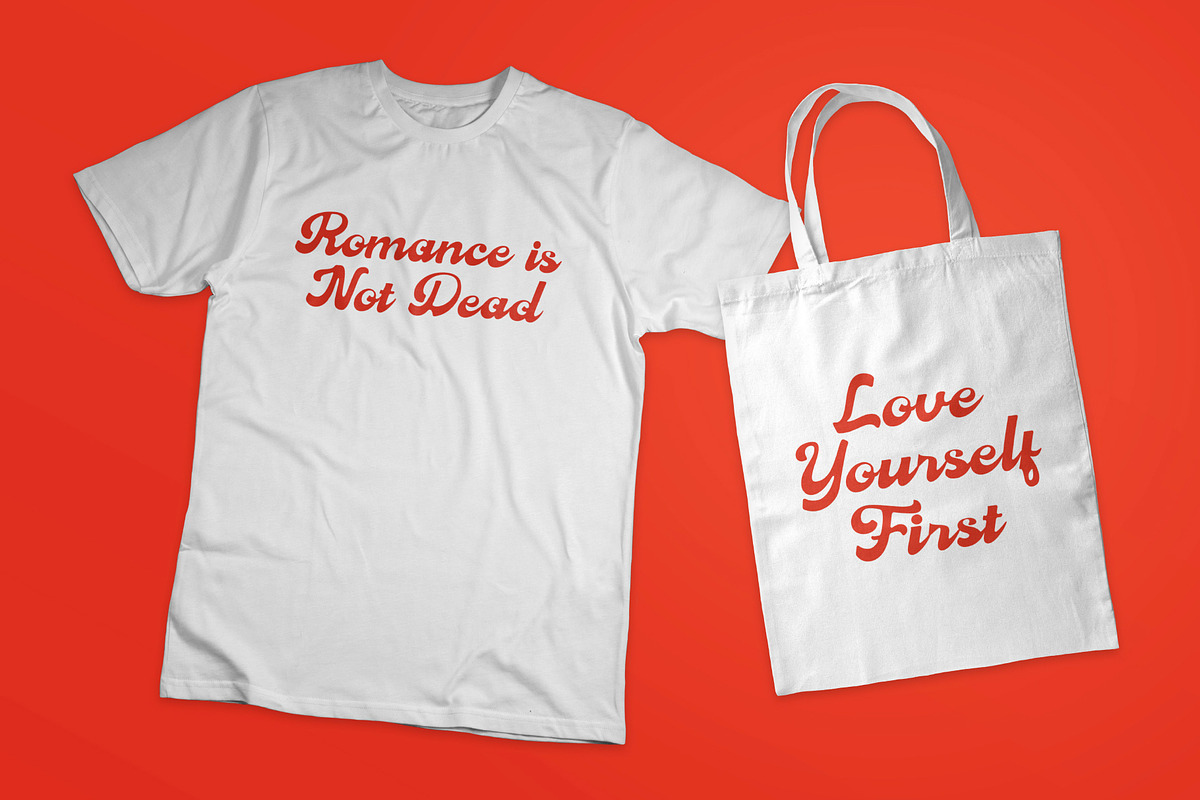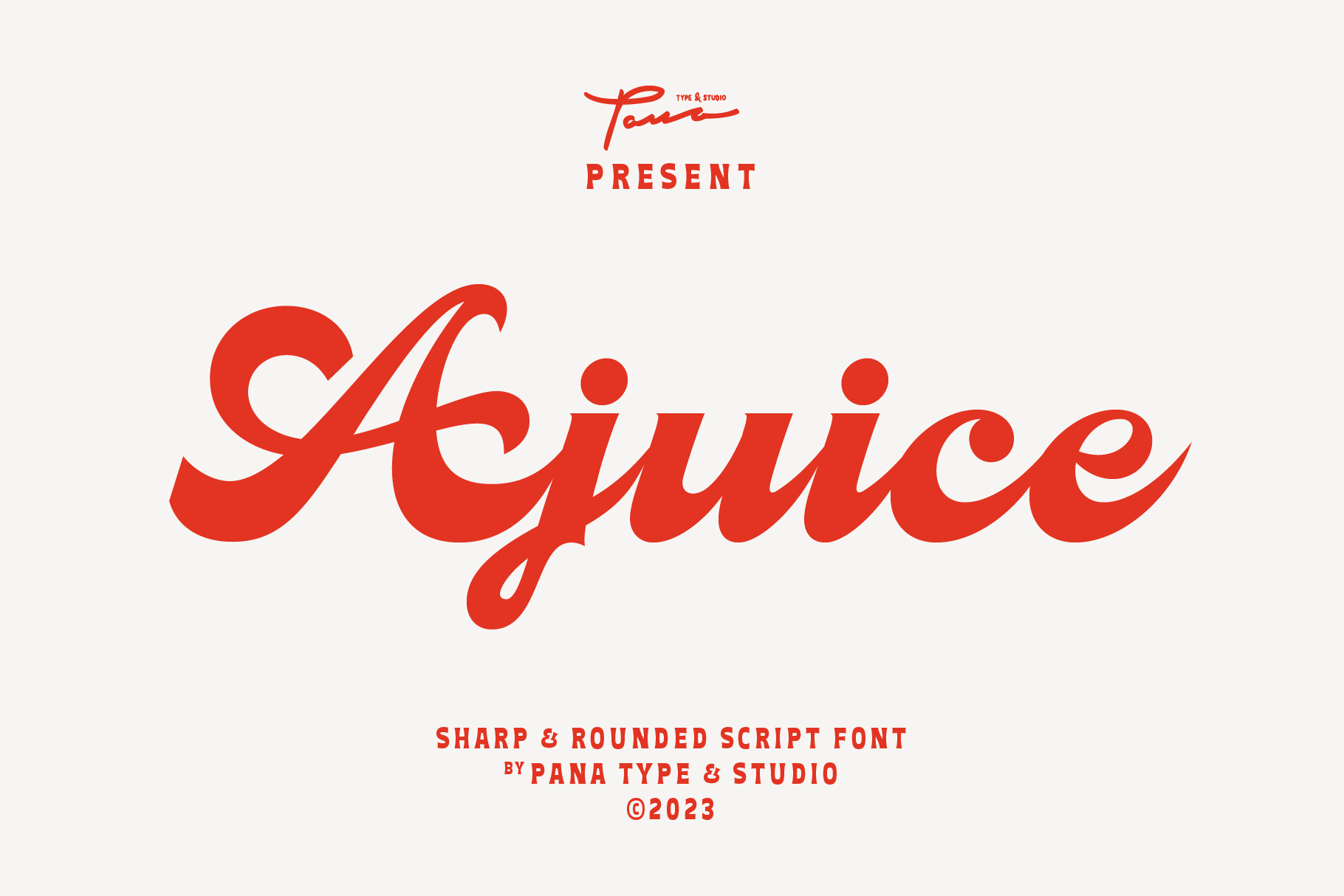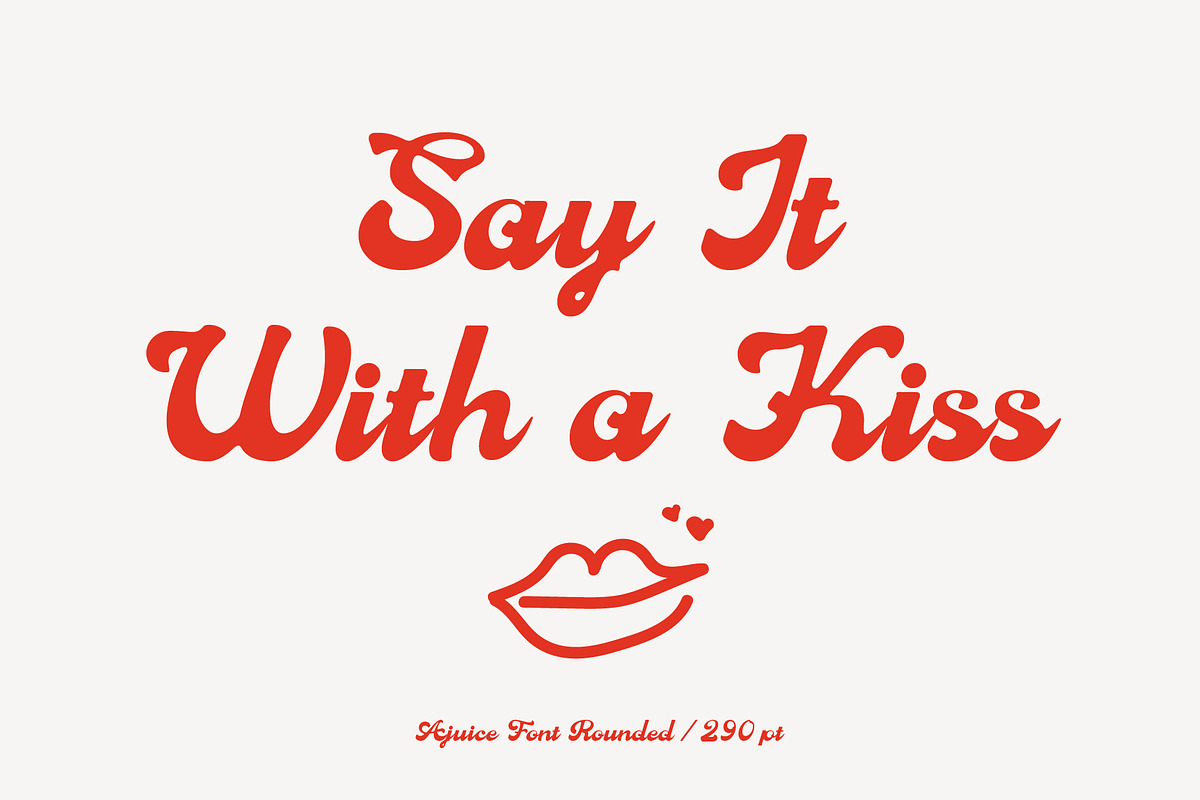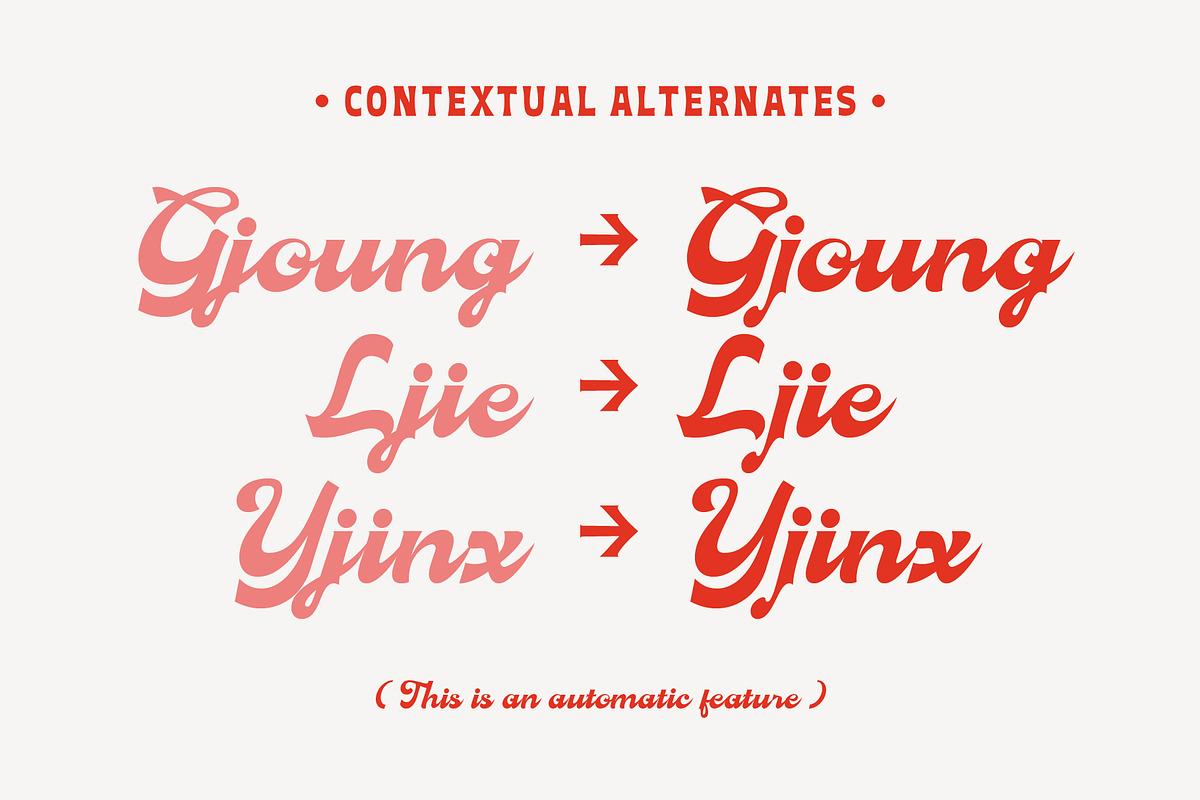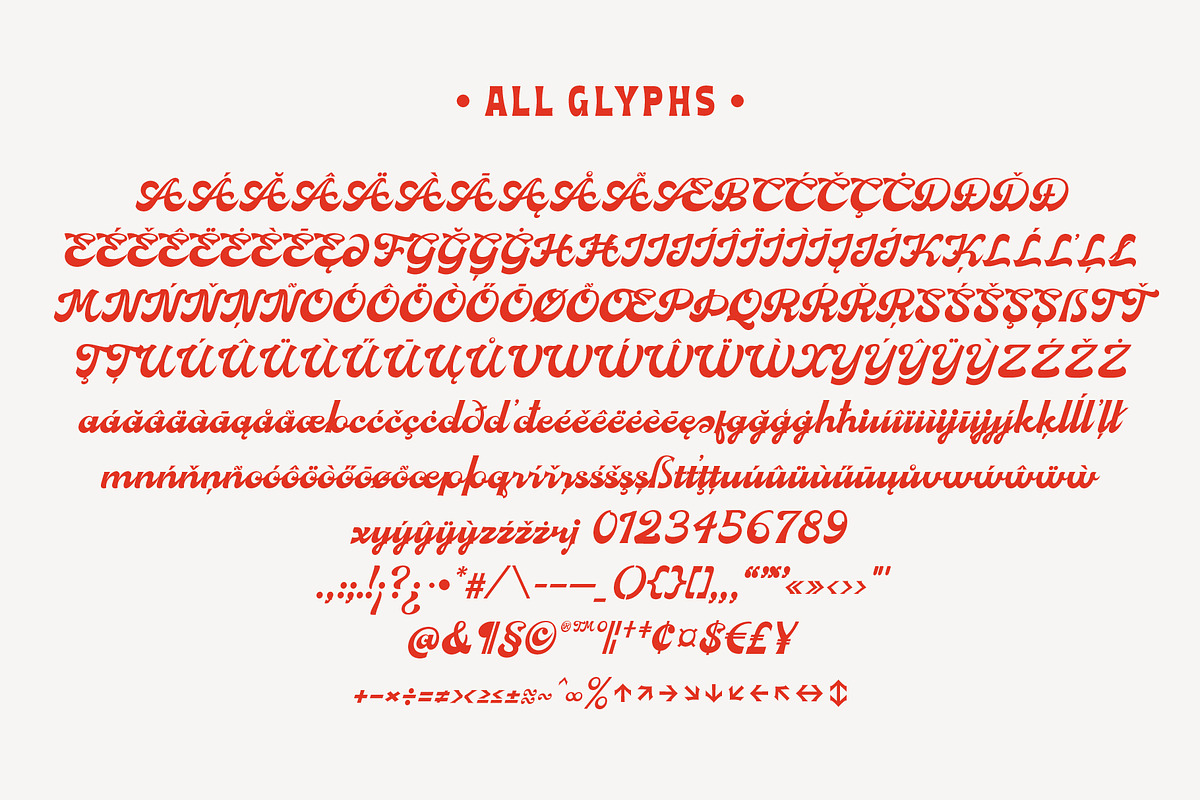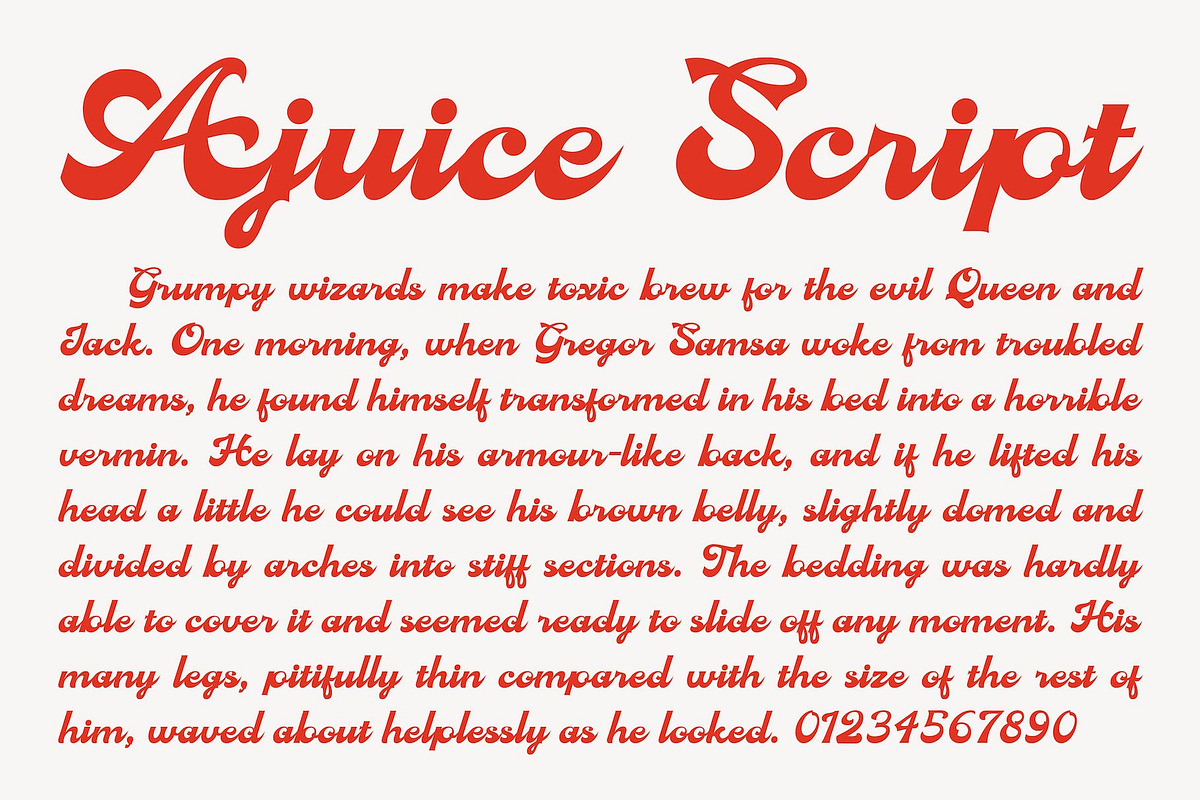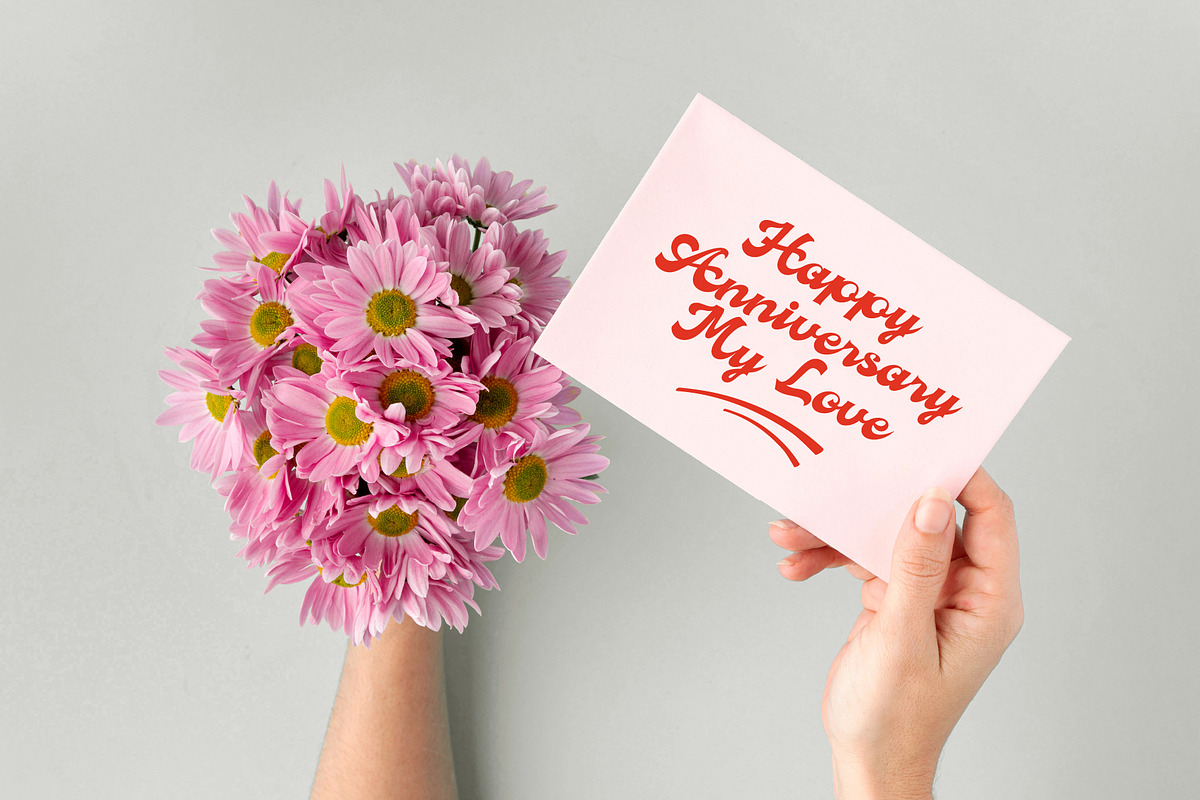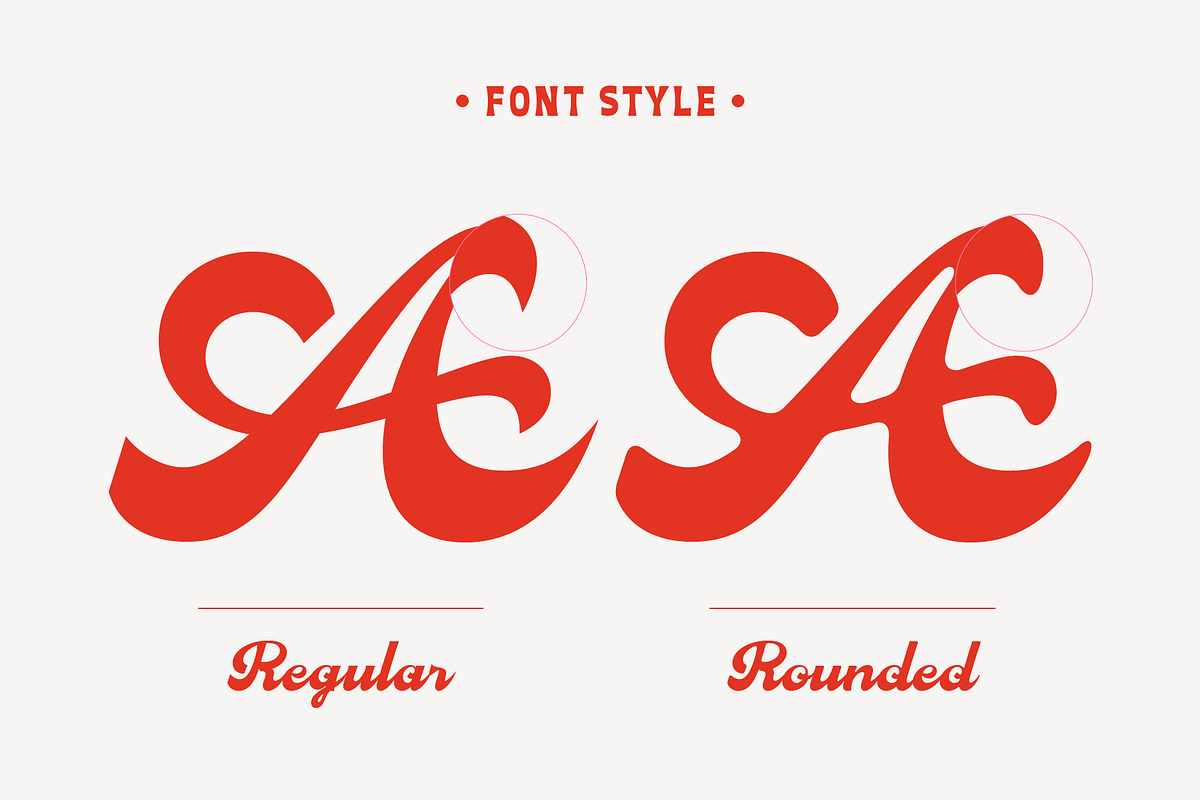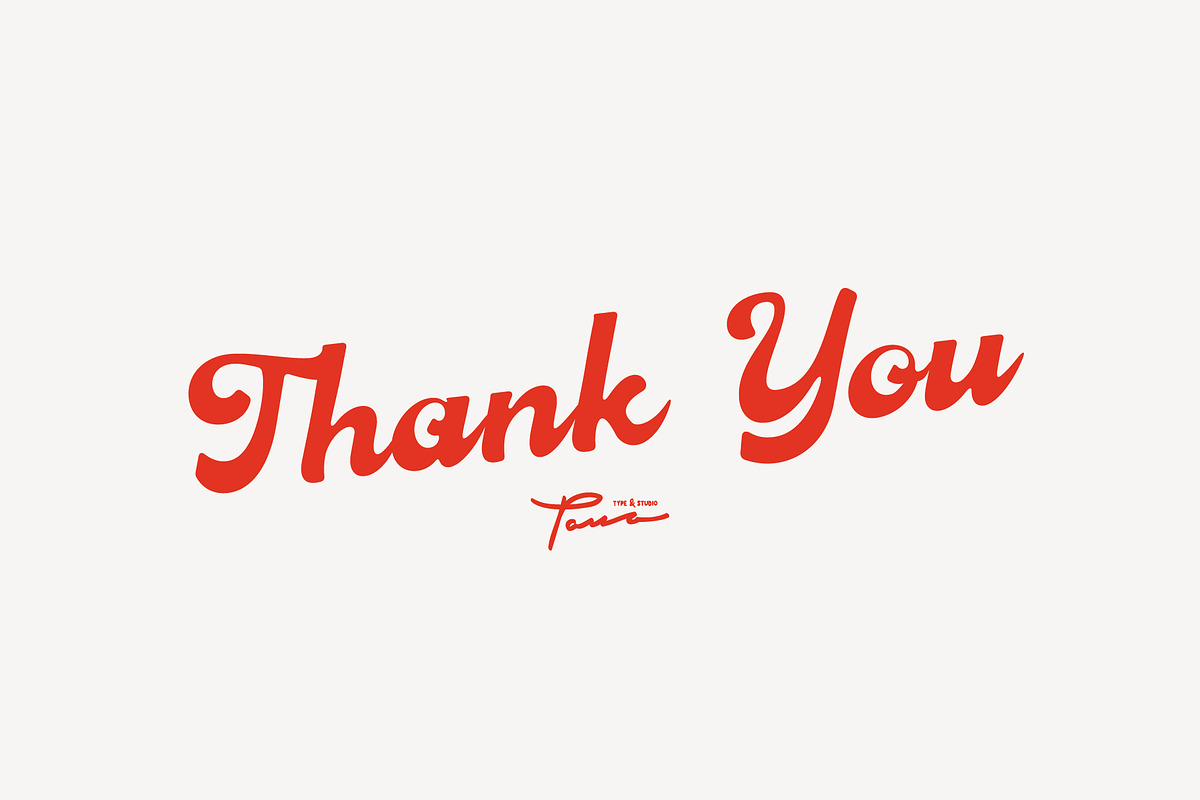
Ajuice Script Font
Ajuice Script Font is a high contrast script font with a romantic theme with two font styles ( Regular & Round ) which is perfect for your designs that want a romantic style, modern vintage, elegant, soft, and carefully crafted for all graphic design needs.
OPENTYPE FEATURE
- Contextual Alternates
Following Language Support :
LATIN EXTENDED ( Western European, Central European, South Eastern European )